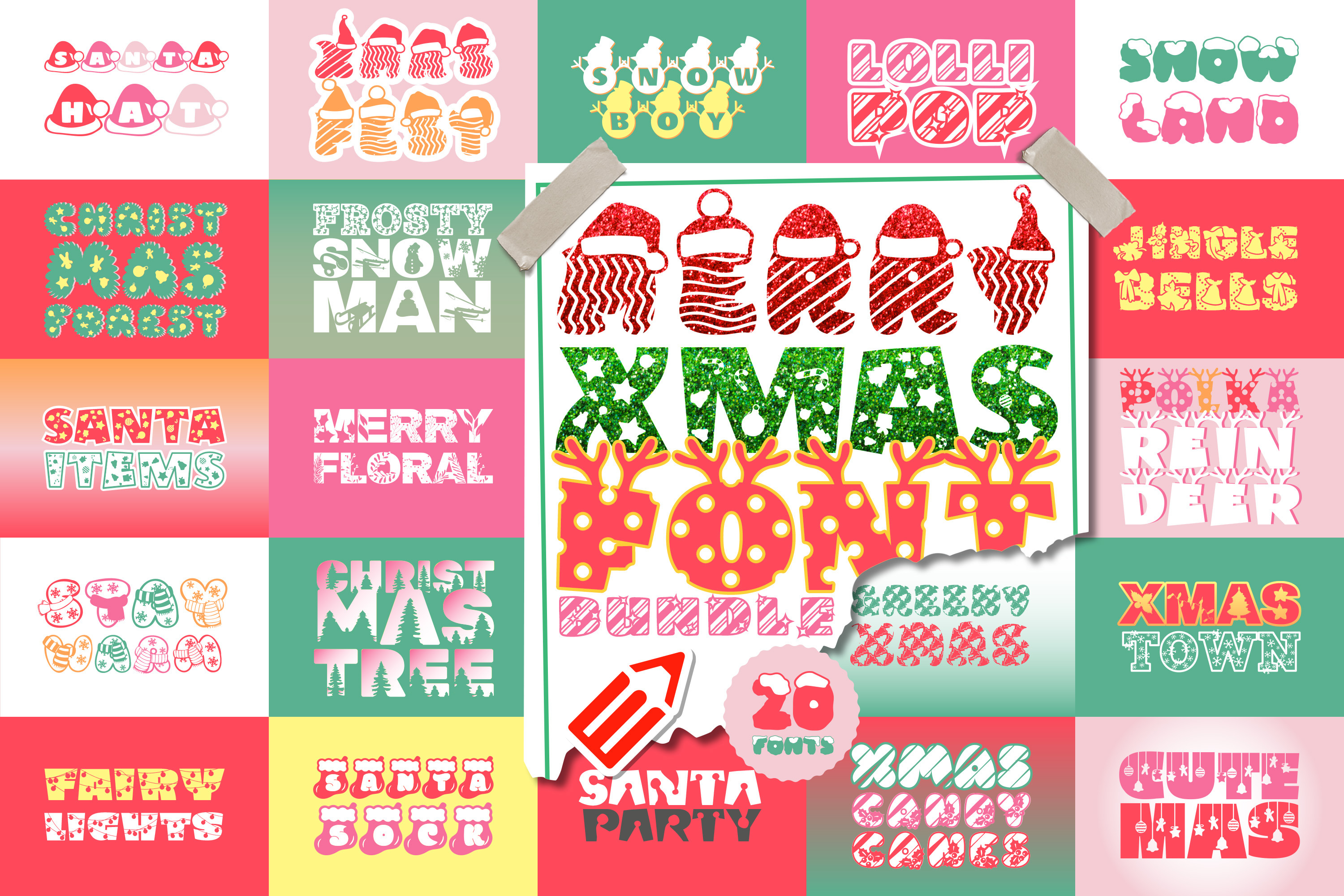
The Merry Xmas Font Bundle
Step into the enchanting world of holiday cheer with the Merry Xmas Font Bundle! Featuring 20 festive fonts such as "Xmas Town Font Trio," "Snow Land," and "Santa Items Font Duo," this collection is your ticket to a winter wonderland of typographic delights. Spread the warmth of the season with "Stay Warm," or let the magic of "Fairy Lights" twinkle in your designs. From the playfully nostalgic "Jingle Bells" to the whimsical "Merry Floral," these fonts will infuse your projects with the joy and spirit of Christmas. Whether you're creating holiday cards, decorating gift tags, or adding a sprinkle of merriment to your website, The Merry Xmas Font Bundle is your go-to resource for a holly, jolly design adventure. Let the sleigh bells ring and the fonts sing - it's time to make your season merrier and brighter!